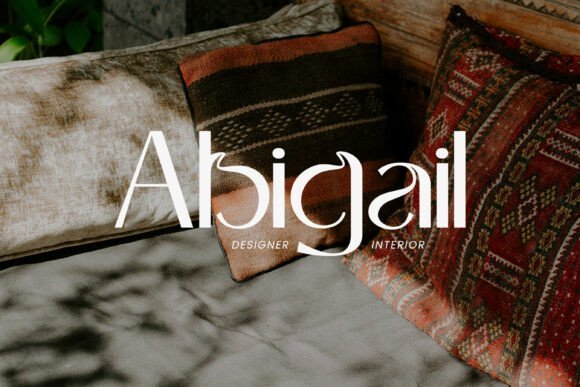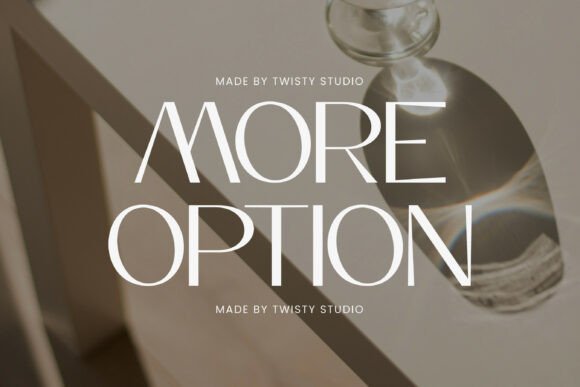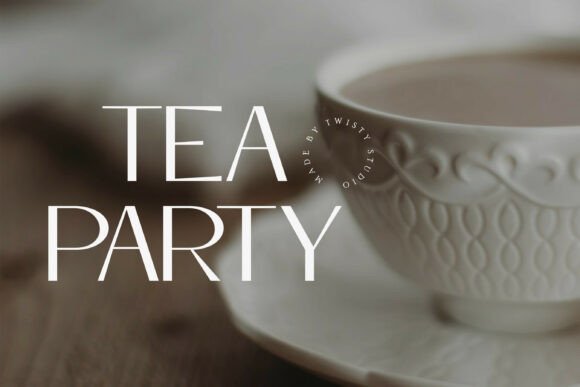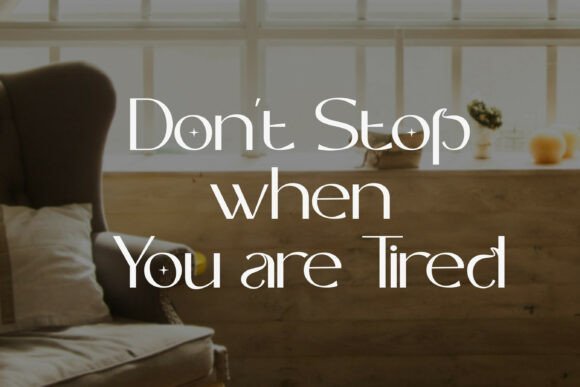
Sanrello Font
Sanrello is a modern sans serif display font with high contrast and refined curves. Its clean lines and subtle details create a bold yet elegant presence—perfect for branding, editorial design, packaging, and contemporary logos.